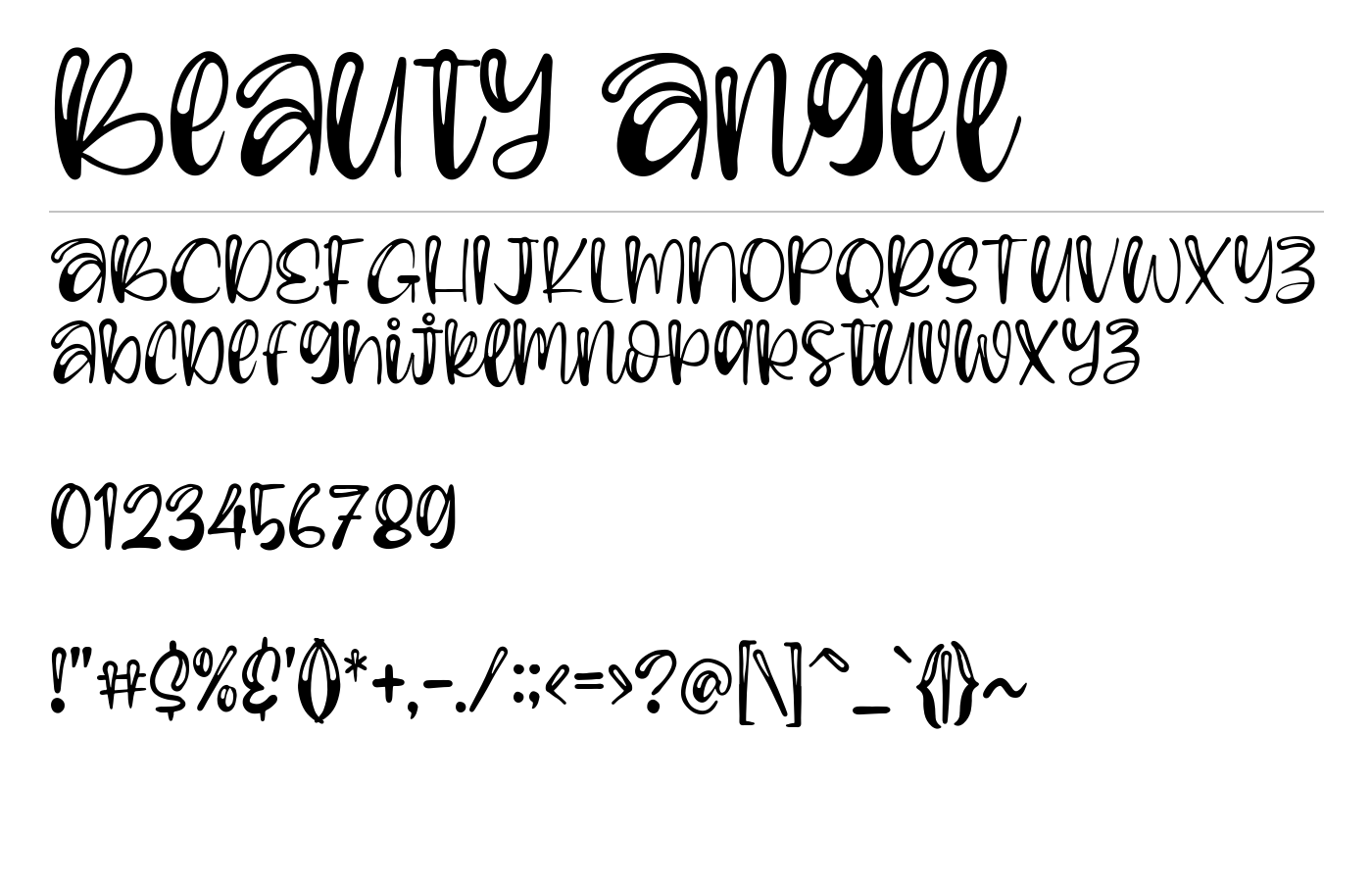
Beauty Angel Font is a playful, hand-drawn script with a lively and casual feel, featuring thick and thin strokes that vary in width for a dynamic look. Its rounded, flowing letterforms and quirky details make it perfect for creative projects that want to convey a friendly, artistic, and approachable vibe. This font works well for branding, invitations, social media graphics, and any design seeking a warm, whimsical touch.
Beauty Angel Font
About Beauty Angel Font
| Font family | Beauty Angel Font |